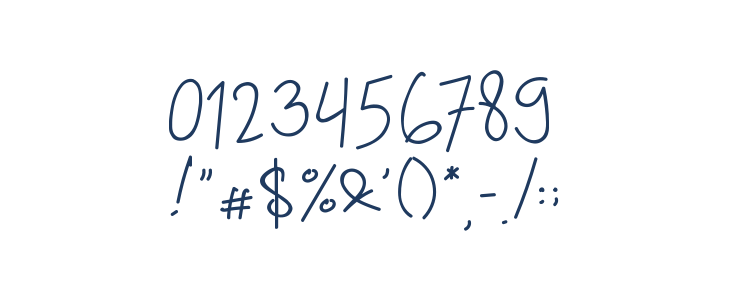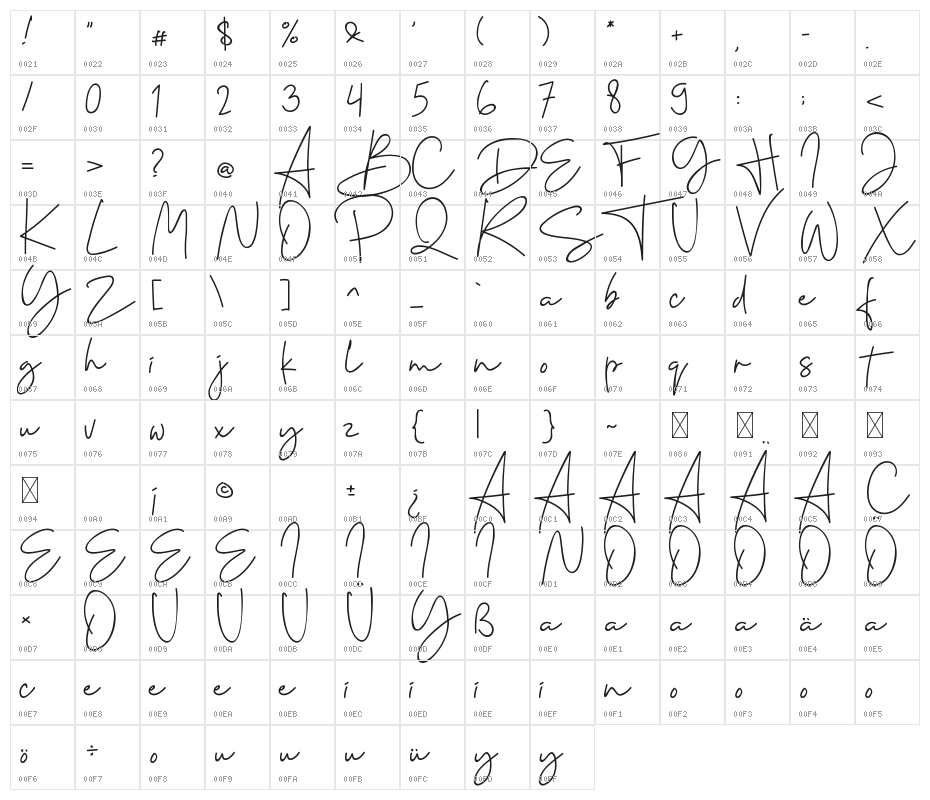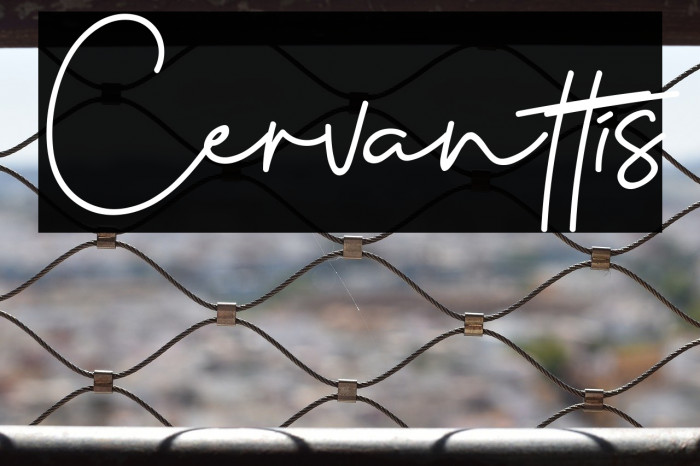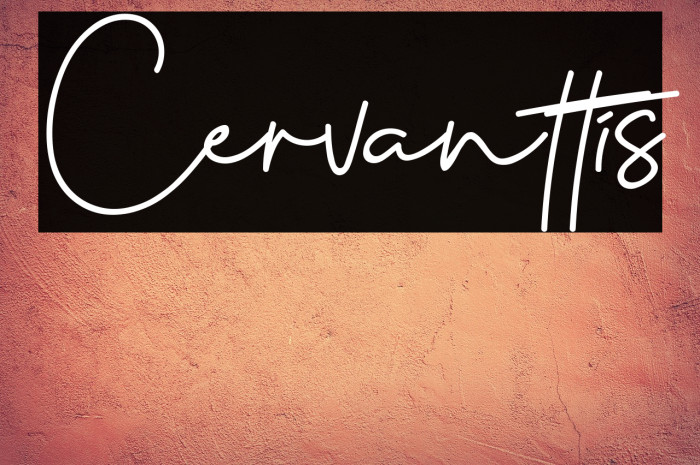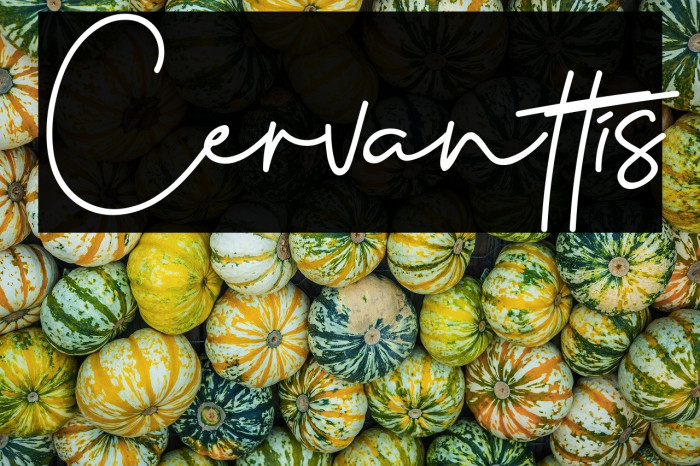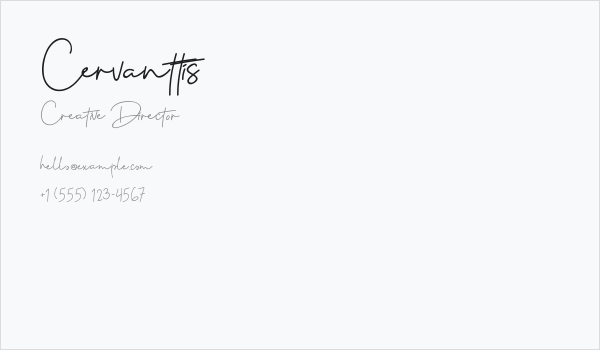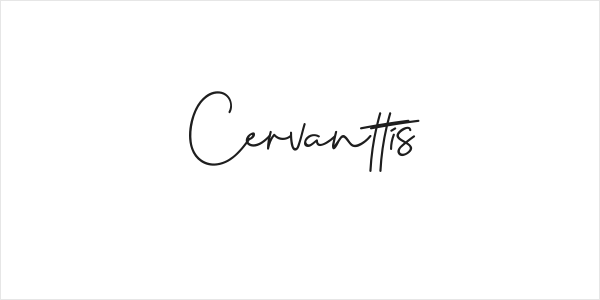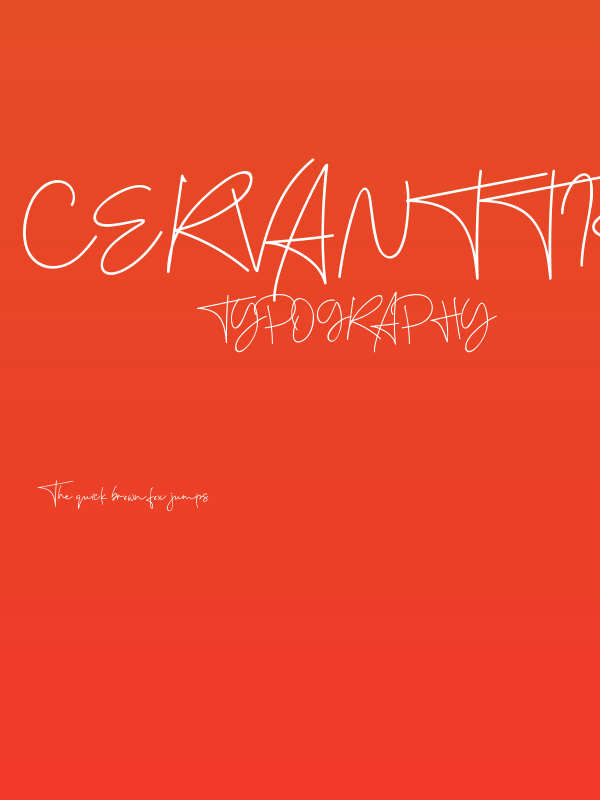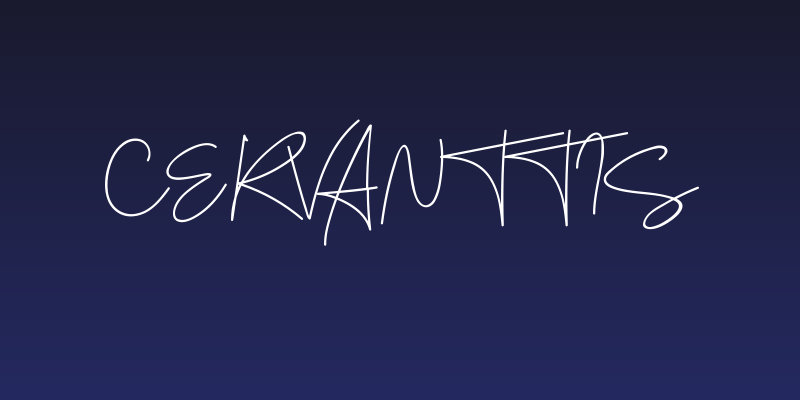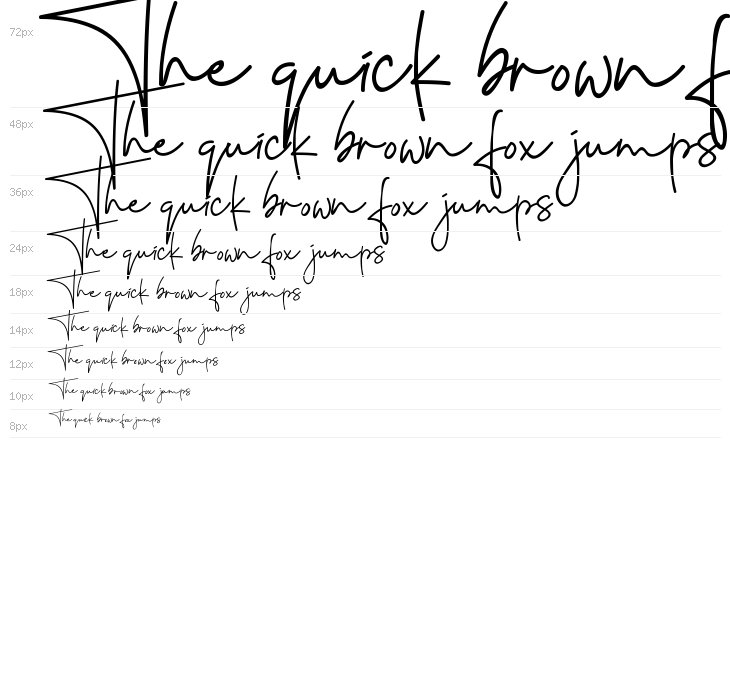
Cervanttis Font
Cervanttis Description
This font exudes a lively and dynamic energy, characterized by its handwritten style that mimics the fluidity of cursive writing. The uppercase letters are bold and expressive, with varying stroke widths that add a sense of movement and spontaneity. The lowercase letters maintain this fluidity, with some characters featuring loops and swirls that enhance the handwritten aesthetic. Numbers are clear and consistent, while special characters retain the playful and informal style of the alphabet. This font is perfect for projects that require a personal touch or a creative flair, such as invitations, greeting cards, or artistic branding.